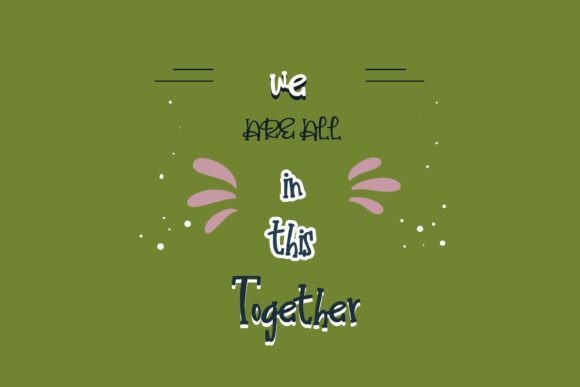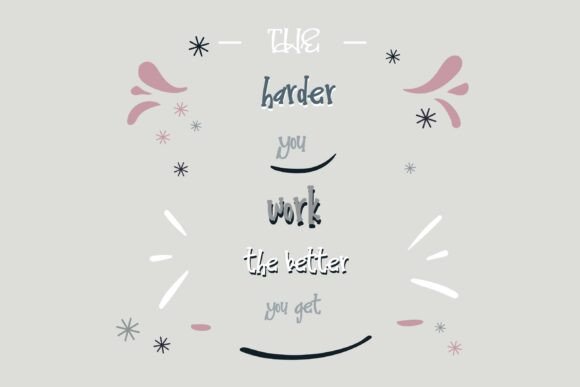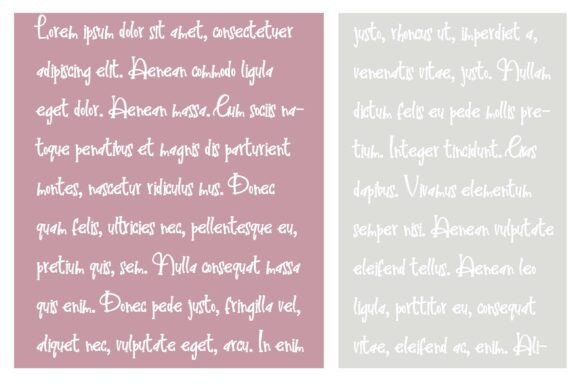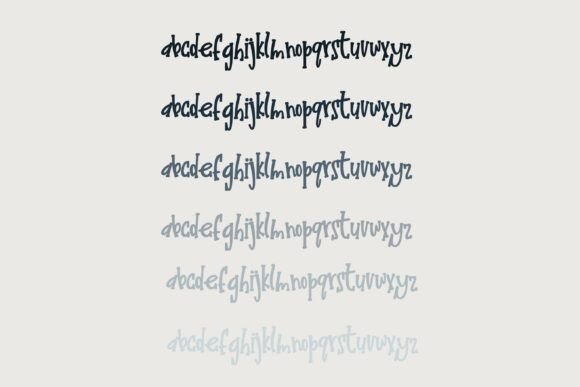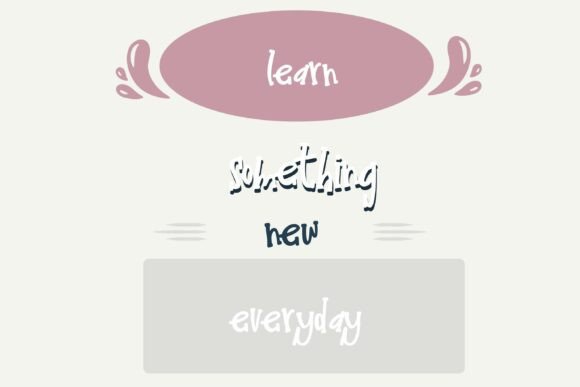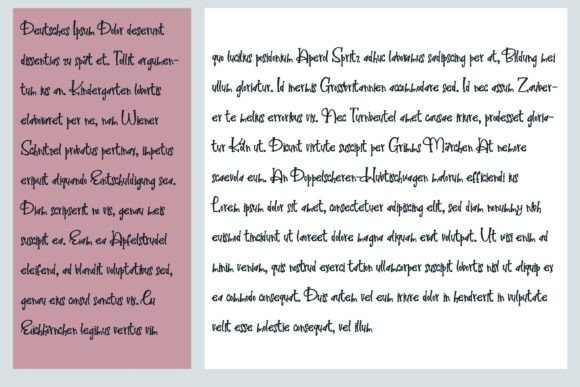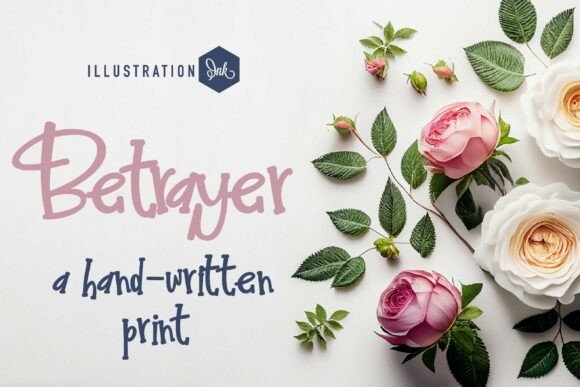
Introducing Betrayer Font: The Epitome of Emotional Elegance
In the realm of typography, few fonts manage to strike a chord as deeply as Betrayer Font. This exquisite typeface seamlessly blends emotional elegance with a hand-drawn print style, making it an ideal choice for designers and crafters seeking to infuse their projects with a personal touch. With its sweeping curves and expressive character shapes, Betrayer Font is poised to become the go-to choice for sentimental quotes, romantic designs, and dramatic branding.
The Essence of Betrayer Font
Betrayer Font is more than just a collection of letters; it’s an artistic expression that embodies the perfect balance between sophistication and whimsy. Its hand-drawn print style lends a sense of authenticity and warmth, making it perfect for projects that require a human touch. The font’s emotional elegance is evident in its flowing lines and curvaceous shapes, which evoke a sense of drama and romance.
Designing with Betrayer Font
When it comes to designing with Betrayer Font, the possibilities are endless. This versatile typeface can be used for a wide range of projects, from romantic wedding invitations and sentimental quotes to dramatic branding and packaging. Its expressive character shapes and sweeping curves make it an excellent choice for:
• Sentimental quotes and poetry
• Romantic designs, such as wedding invitations and Valentine’s Day cards
• Dramatic branding, including logos and packaging
• Handmade crafts, such as scrapbooking and journaling
What Sets Betrayer Font Apart
So, what makes Betrayer Font stand out from the crowd? Here are a few key features that set it apart:
• Hand-drawn print style: Betrayer Font boasts a unique, hand-drawn print style that lends a sense of authenticity and warmth to any project.
• Emotional elegance: The font’s sweeping curves and expressive character shapes evoke a sense of drama and romance, making it perfect for sentimental and emotional projects.
• Versatility: Betrayer Font can be used for a wide range of projects, from romantic designs to dramatic branding.
Tips for Using Betrayer Font
To get the most out of Betrayer Font, here are a few tips to keep in mind:
• Pair with contrasting fonts: Betrayer Font pairs beautifully with contrasting fonts, such as bold sans-serifs or elegant scripts.
• Experiment with colors: The font’s emotional elegance is elevated by rich, bold colors that add depth and dimension to your designs.
• Pay attention to spacing: Betrayer Font’s hand-drawn print style means that spacing can be a bit more tricky. Experiment with different spacing options to find the perfect fit for your project.
Betrayer Font is a true masterpiece of typography, combining emotional elegance with a hand-drawn print style to create a truly unique and expressive typeface. Whether you’re a designer, crafter, or simply someone who appreciates beautiful typography, Betrayer Font is sure to captivate and inspire. With its sweeping curves and expressive character shapes, it’s the perfect choice for sentimental quotes, romantic designs, and dramatic branding with a personal touch.